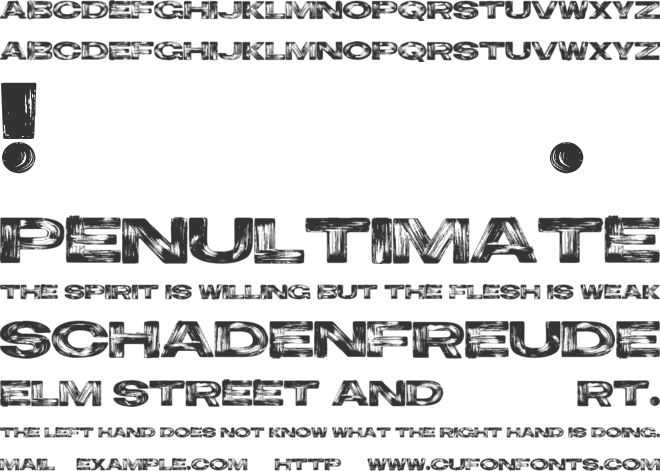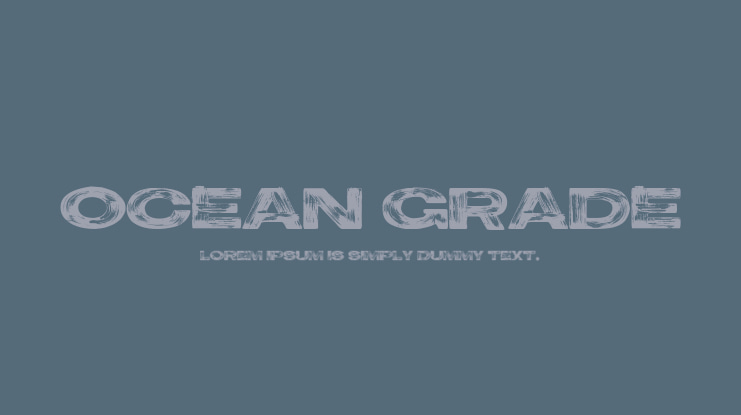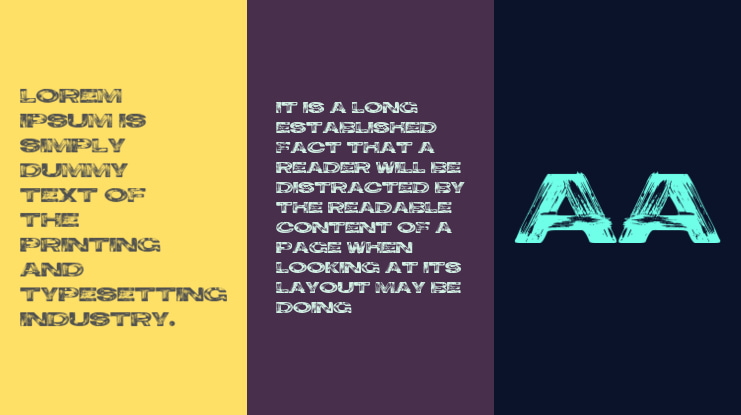
Ocean Grade Font
Full Version Available: https://thebrandedquotes.sellfy.store/p/ocean-grade-font/Ocean Grade is a trendy and straightforward font that bears its own acrylic texture. It goes well with your macro photographs and aesthetic posters. Layer it onto your projects and see how Ocean Grade takes your designs to the next level.